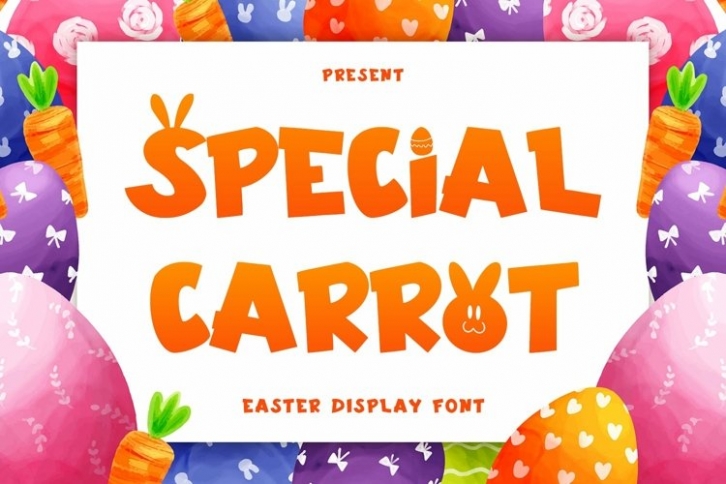
Web Special Carrot is a trendy and unique font with an authentic style. It was designed by plusstore and it's a great choice for creative people who need such a font. It was released on August 14, 2021 and the file size is 14.30 MB. Web Special Carrot will add an organic vibe to any design idea!